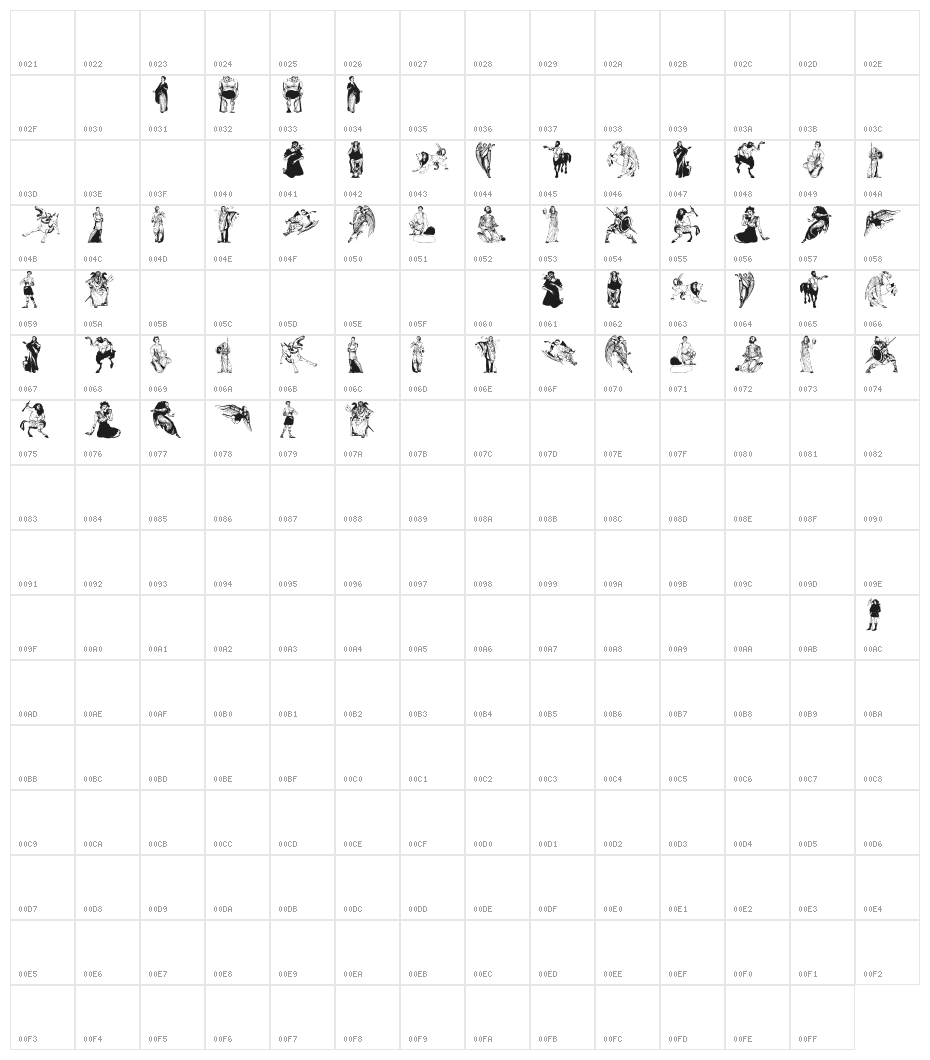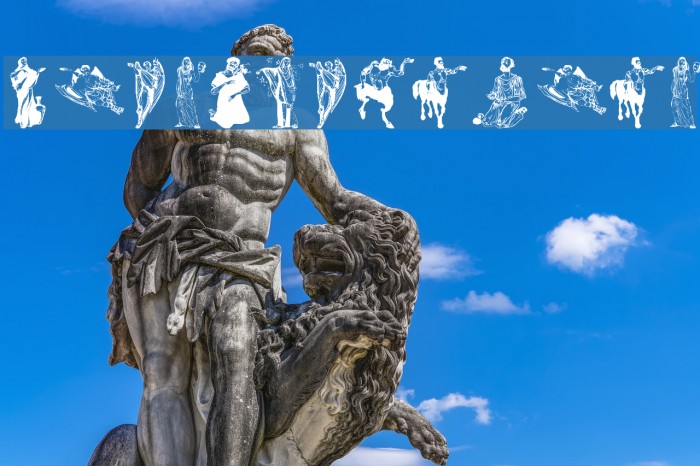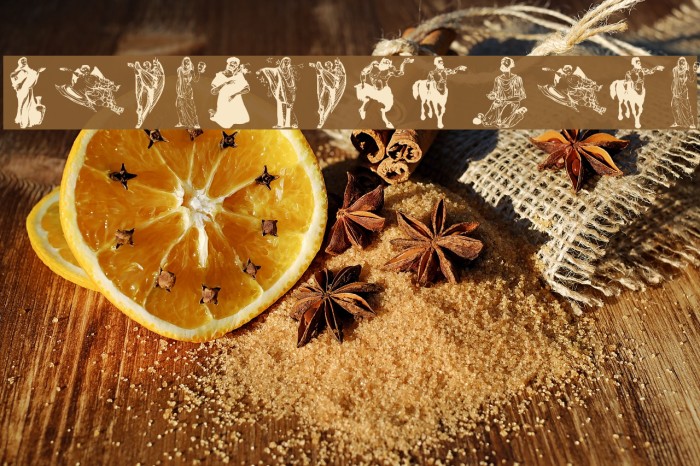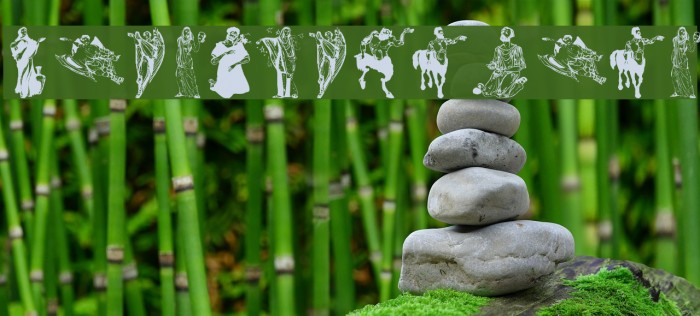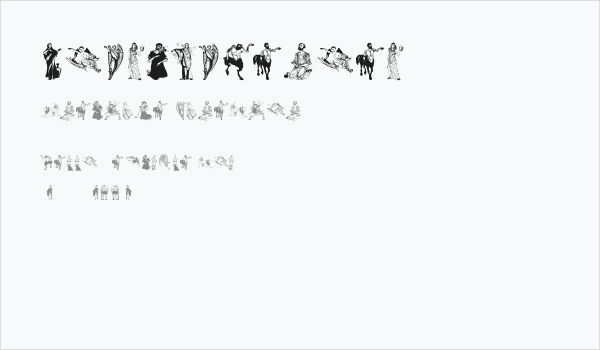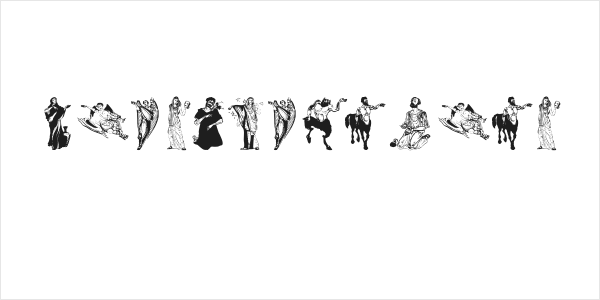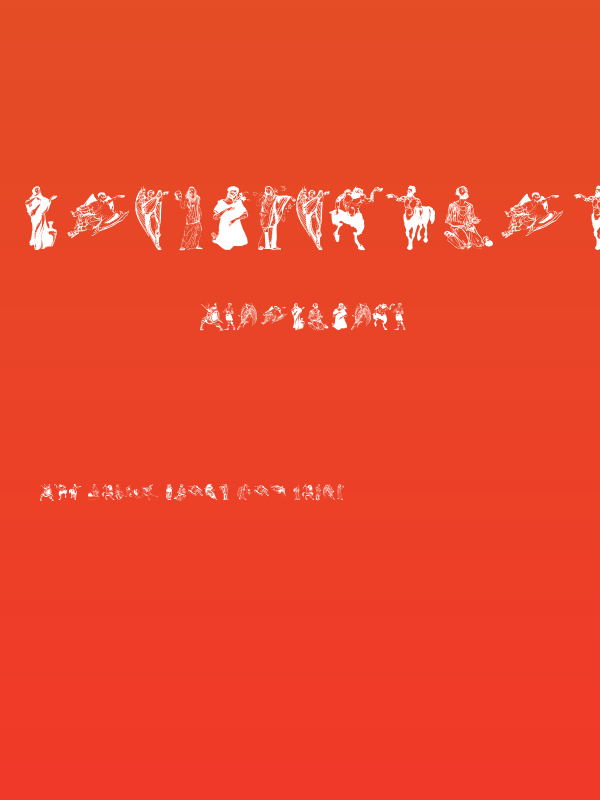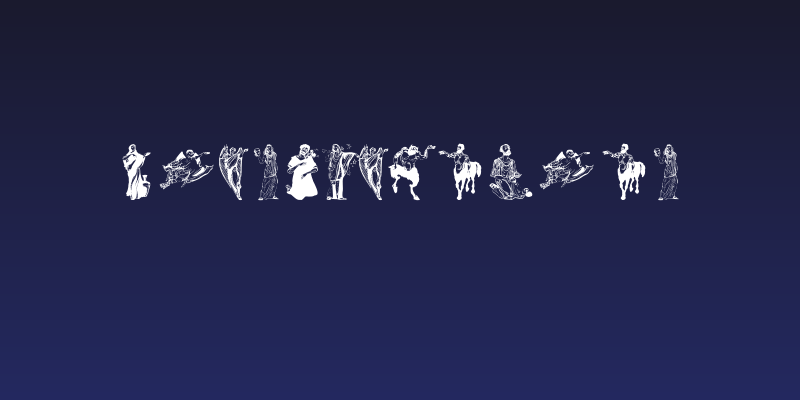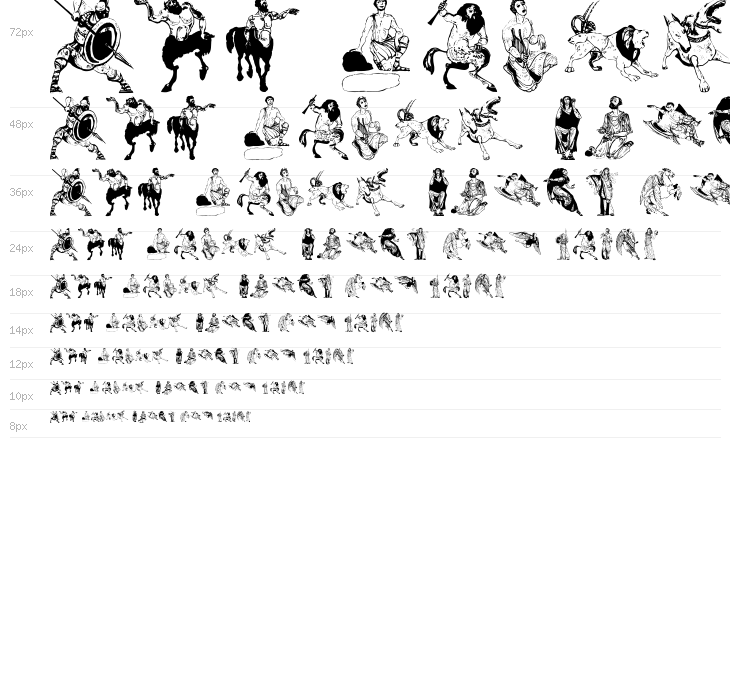
GodsAndHeroes Font
GodsAndHeroes Description
A highly decorative and illustrative font featuring detailed drawings of mythological figures and scenes, each character represented by a unique, intricate illustration rather than traditional letterforms.
Overall StyleDecorative, Mythological, Artistic
Use CaseLogos, Headlines, Posters, Themed Graphics
Proposed ProjectsBook covers, posters, themed invitations, educational materials, fantasy or mythology-related branding.